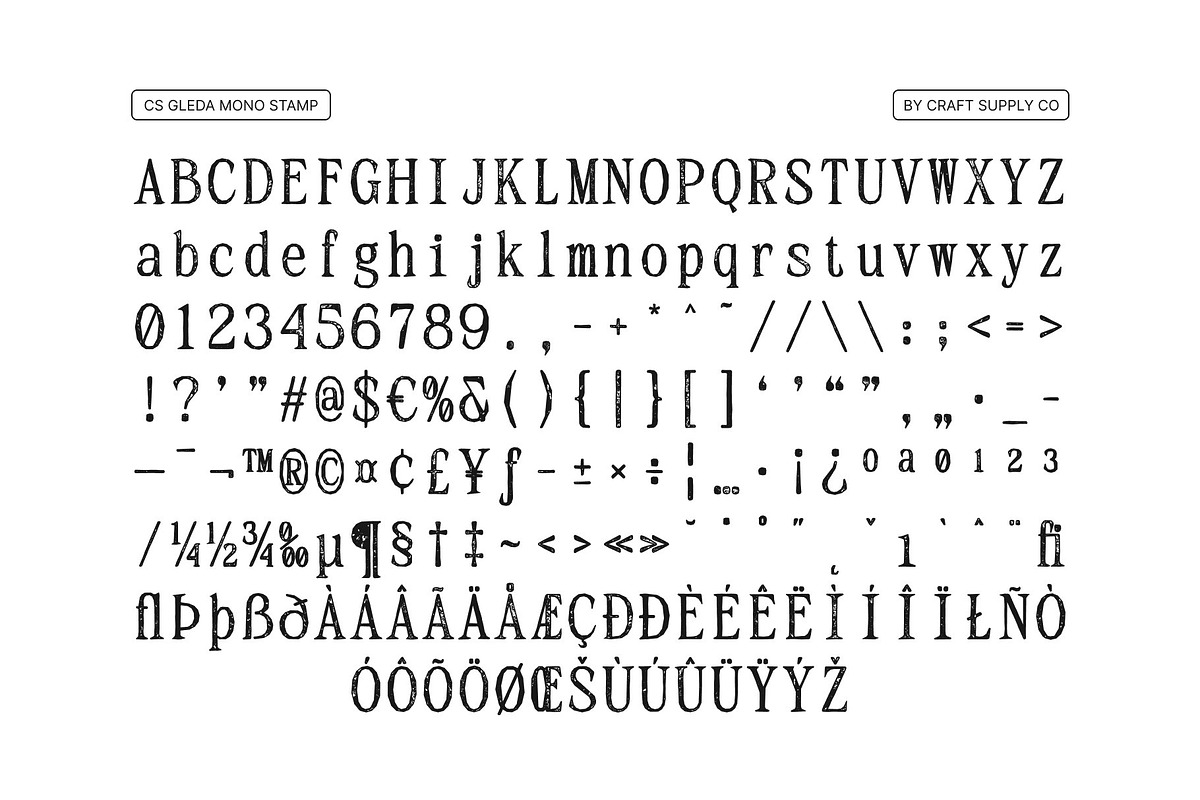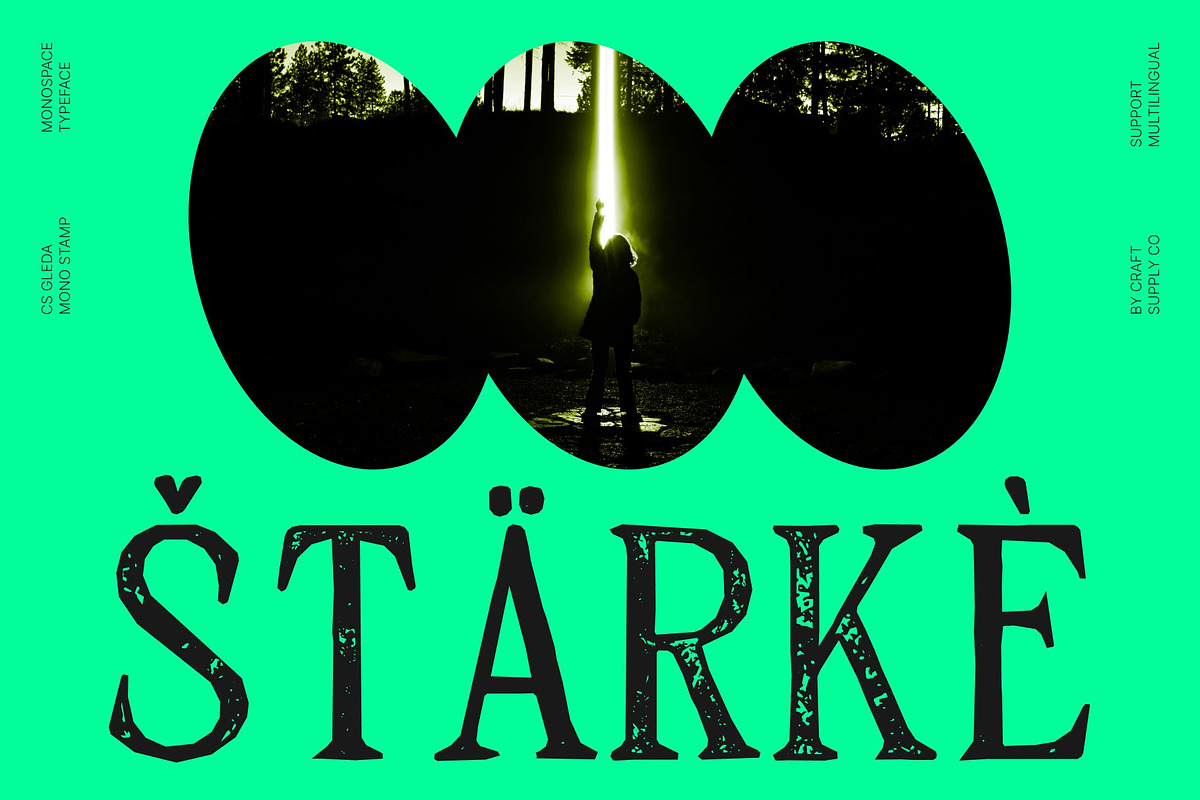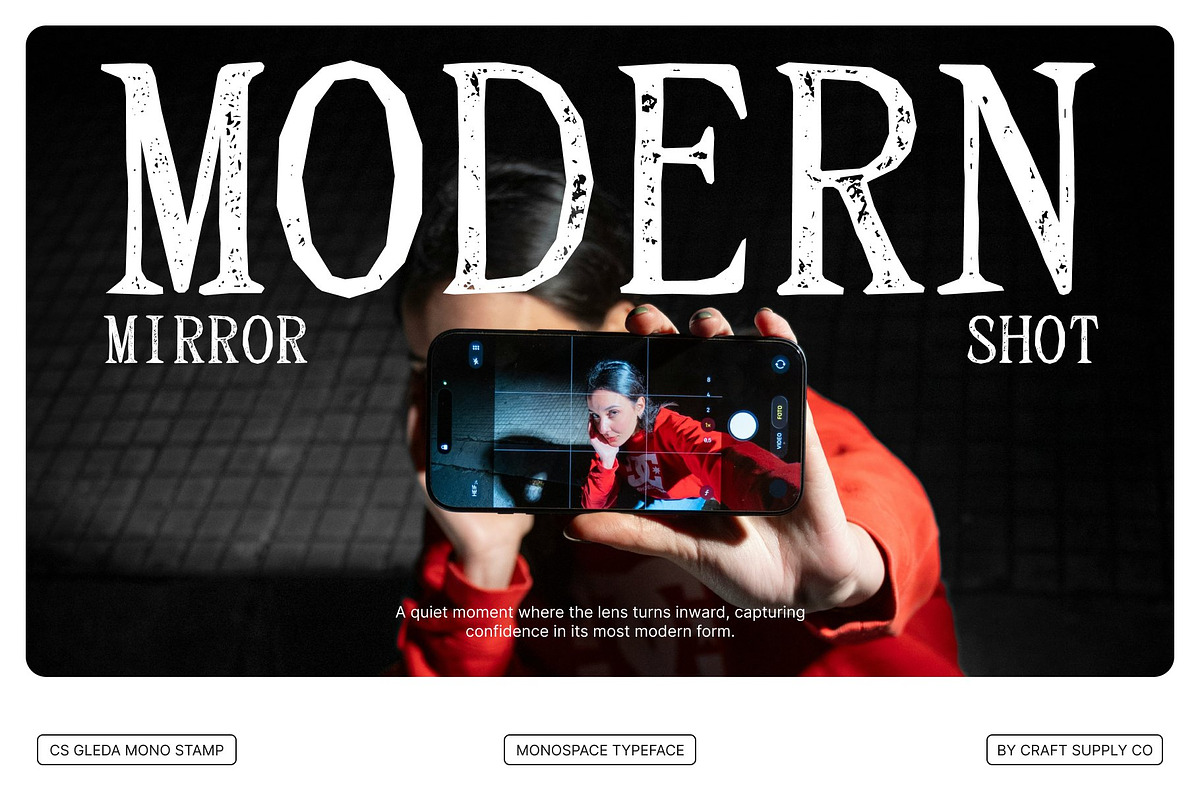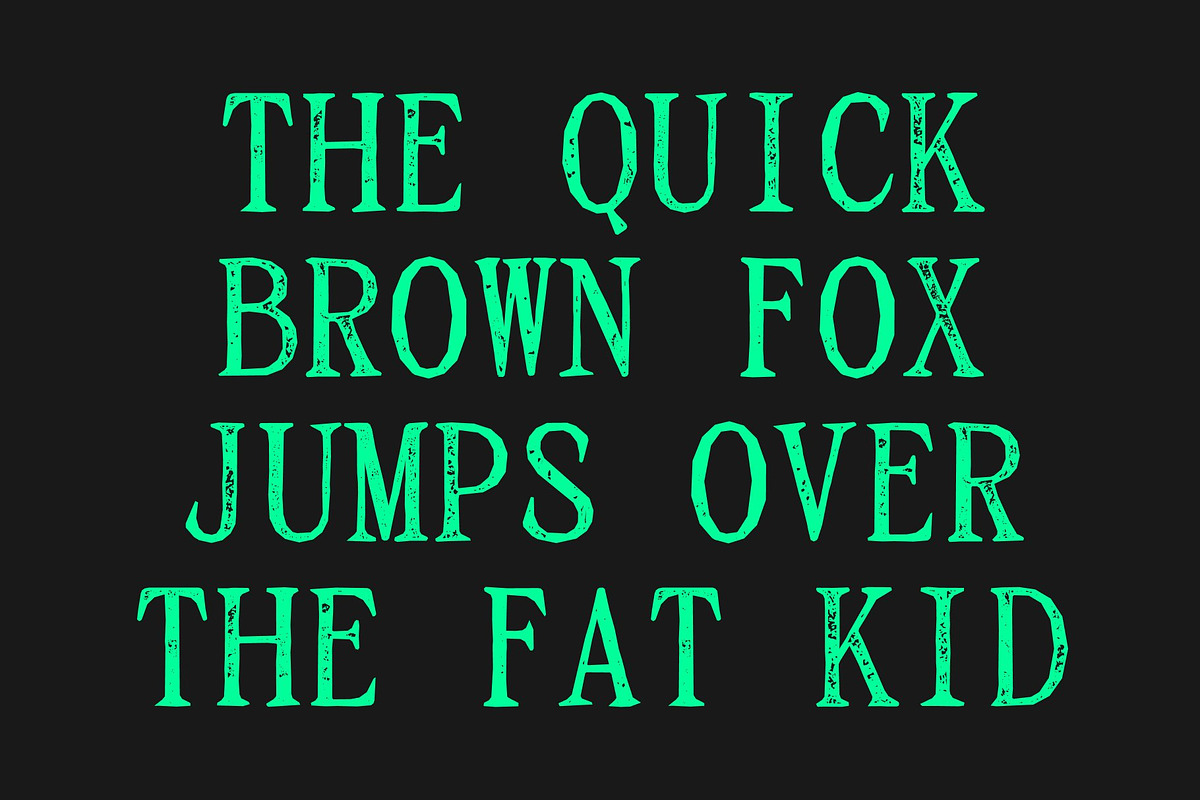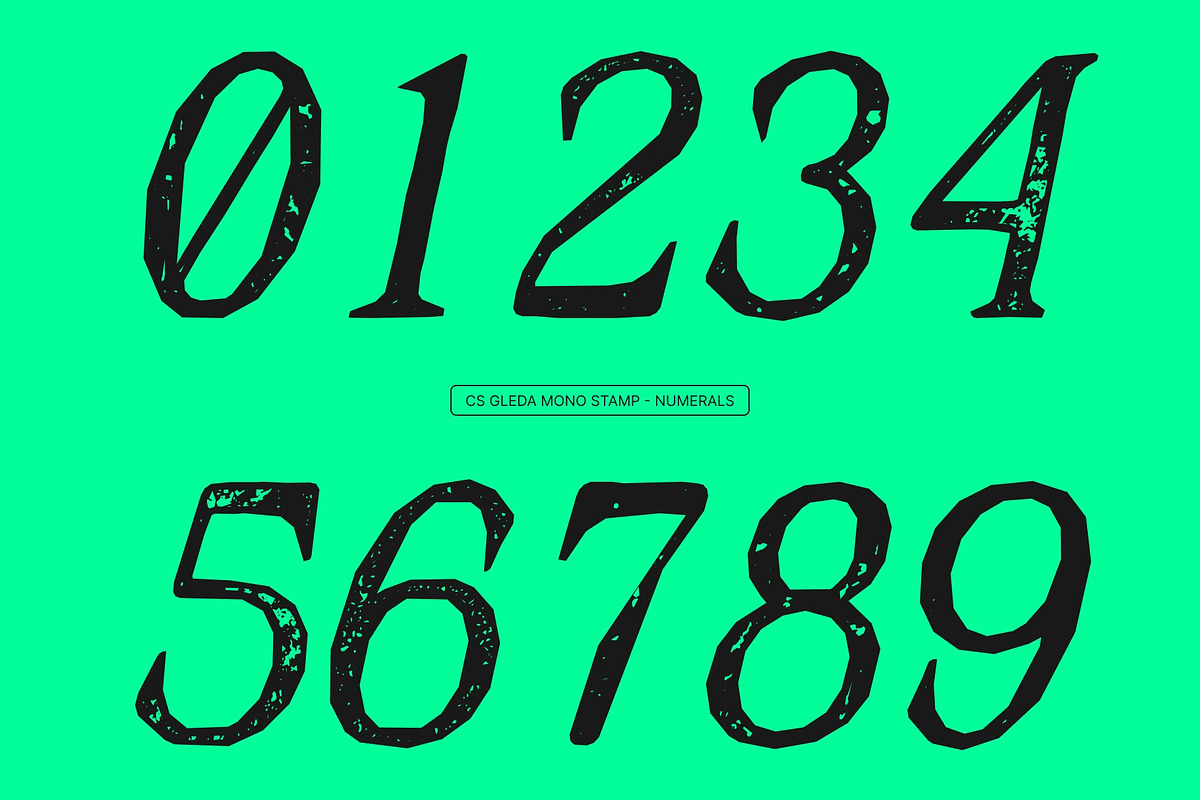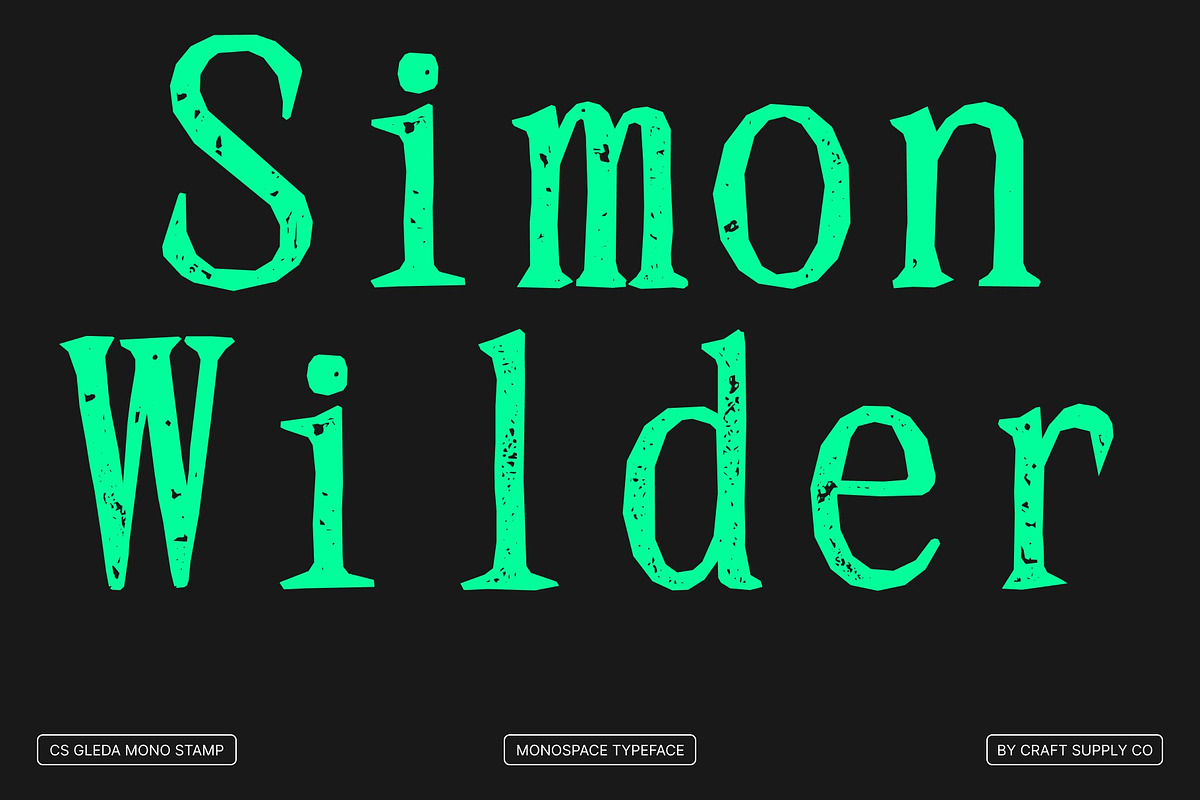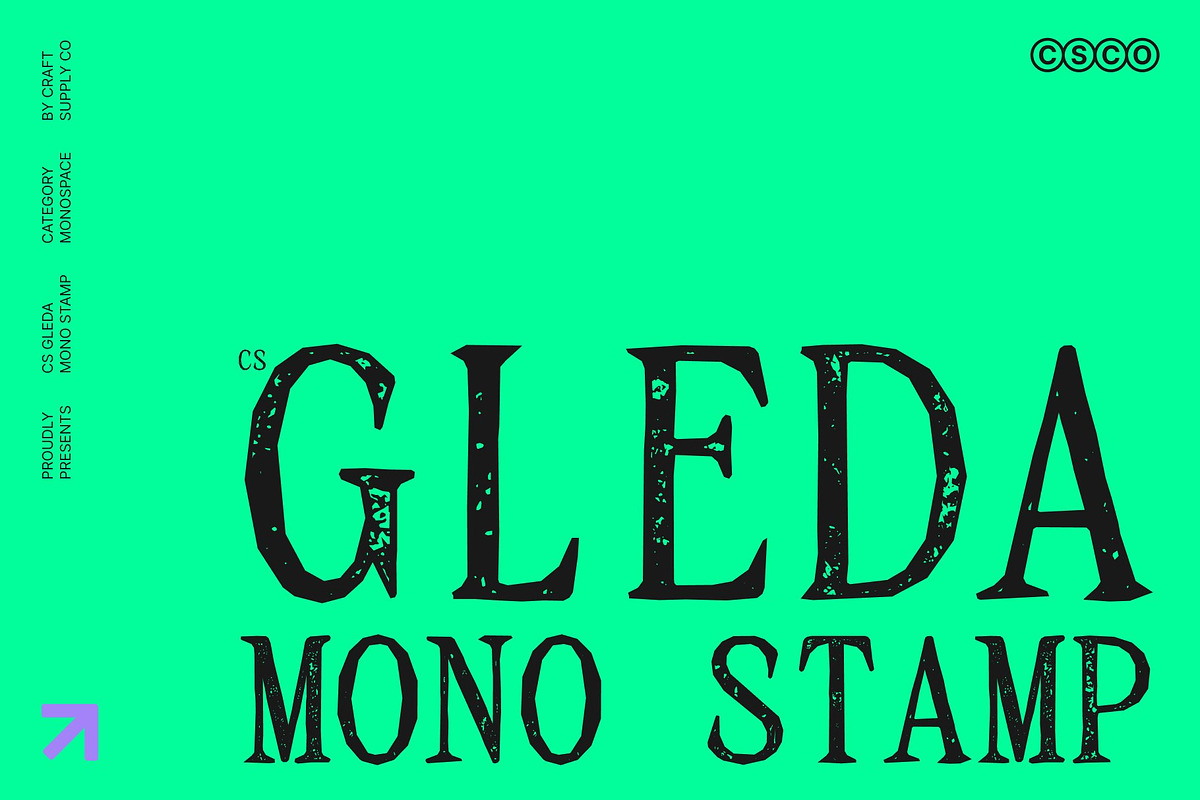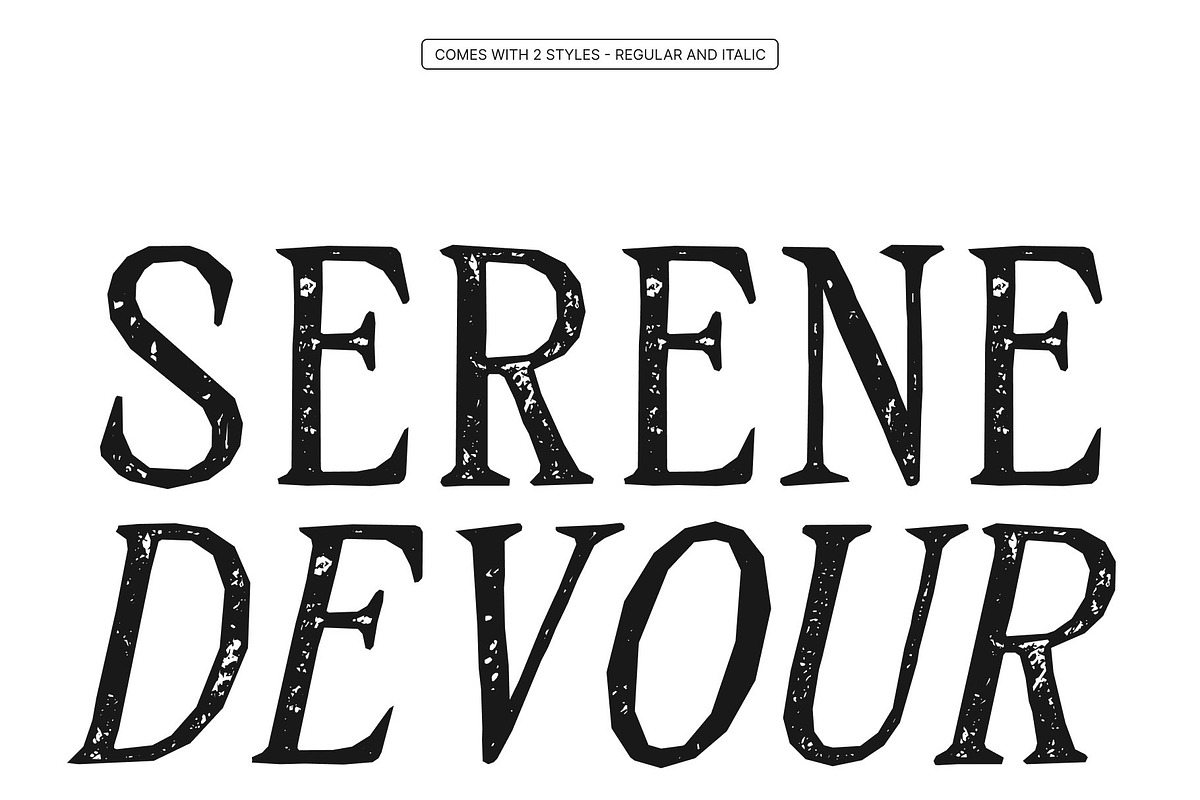
CS Gleda Mono Stamp
Modern Elegance in Monospaced Design Font
Contemporary Monospaced Serif with Stamp Texture This is a striking modern serif font that blends contemporary precision with classic elegance, enhanced by a distinctive stamp texture. Designed in a monospaced style, every character shares the same width, creating perfect alignment, consistent rhythm, and exceptional readability. The added stamp effect introduces subtle imperfections that give the font a tactile, authentic, and handcrafted personality.
Balanced Blend of Tradition and Modernity The monospaced structure delivers a clean, organized appearance ideal for structured layouts and technical content. Smooth curves and refined serif details preserve a timeless aesthetic, while the stamp texture softens the form with a slightly worn, organic feel. This fusion of precision and character creates a sophisticated typeface that feels both modern and vintage at once.
Professional Yet Expressive for Versatile Use This font performs beautifully across professional and creative projects. Its clarity ensures efficient reading in long texts, while the textured finish adds visual interest to headlines and branding. Perfect for websites, coding themes, editorial layouts, technical documentation, packaging, branding, and report design, this font delivers professionalism with a distinctive personality.